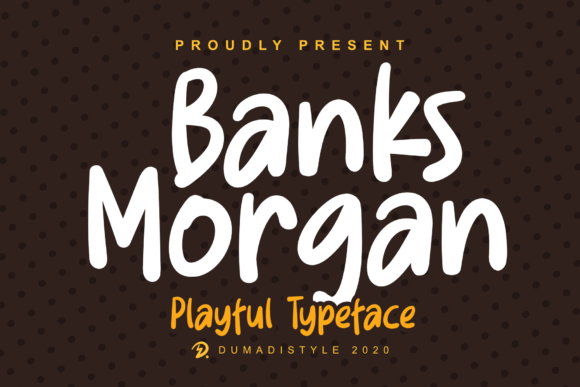
Banks Morgan Font: A Cute and Quirky Display Font to Elevate Your Designs
In the world of typography, fonts play a crucial role in conveying the tone and personality of a design. With thousands of fonts available, it can be overwhelming to choose the right one that makes your creative ideas stand out. However, if you’re looking for a font that adds a joyful touch to your designs, look no further than the Banks Morgan Font. In this article, we’ll explore the features and benefits of this beautiful display font and how it can elevate your designs to the next level.
What is Banks Morgan Font?
Banks Morgan Font is a cute and quirky display font designed to add a playful and fun touch to your designs. Its unique and irregular shape makes it perfect for creating eye-catching headings, titles, and captions. The font is carefully crafted to convey a sense of joy and friendliness, making it ideal for designs that require a personal and approachable tone.
Key Features of Banks Morgan Font
- Unique and Quirky Design: Banks Morgan Font boasts a distinctive and irregular shape that sets it apart from other fonts. Its quirky design makes it perfect for creating designs that stand out from the crowd.
- Playful and Fun: The font’s playful and fun nature makes it ideal for designs that require a lighthearted and approachable tone.
- Highly Versatile: Banks Morgan Font can be used for a wide range of design projects, from branding and advertising to packaging and digital media.
- Easily Readable: Despite its quirky design, the font is easily readable, making it perfect for use in headings, titles, and captions.
Benefits of Using Banks Morgan Font
So, why should you choose Banks Morgan Font for your designs? Here are some benefits of using this beautiful display font:
- Adds a Joyful Touch: Banks Morgan Font adds a joyful and playful touch to your designs, making them more engaging and attention-grabbing.
- Creates a Personal Connection: The font’s friendly and approachable nature helps create a personal connection with your audience, making your designs more relatable and memorable.
- Perfect for Branding and Advertising: Banks Morgan Font is ideal for branding and advertising projects that require a fun and playful tone, such as logos, taglines, and product packaging.
- Easy to Pair with Other Fonts: The font is easily paired with other fonts, making it perfect for use in combination with other typography styles.
How to Use Banks Morgan Font in Your Designs
Now that we’ve explored the features and benefits of Banks Morgan Font, let’s discuss how to use it in your designs:
- Headings and Titles: Use Banks Morgan Font as a heading or title font to add a playful and fun touch to your designs.
- Captions and Taglines: Use the font as a caption or tagline font to add a personal and approachable tone to your designs.
- Branding and Logo Design: Use Banks Morgan Font as a primary or secondary font for branding and logo design projects that require a fun and playful tone.
- Digital Media: Use the font in digital media, such as social media graphics, email newsletters, and website headers, to add a joyful and engaging touch to your online presence.
Tips for Pairing Banks Morgan Font with Other Fonts
Pairing Banks Morgan Font with other fonts can create a unique and visually appealing typography style. Here are some tips for pairing this font with other fonts:
- Pair with Serif Fonts: Pair Banks Morgan Font with serif fonts, such as Times New Roman or Georgia, to create a contrasting and visually appealing typography style.
- Pair with Sans-Serif Fonts: Pair the font with sans-serif fonts, such as Arial or Helvetica, to create a clean and modern typography style.
- Pair with Script Fonts: Pair Banks Morgan Font with script fonts, such as Pacifico or Great Vibes, to create a elegant and sophisticated typography style.
In conclusion, Banks Morgan Font is a beautiful display font that adds a joyful and playful touch to your designs. Its unique and quirky design makes it perfect for creating eye-catching headings, titles, and captions. With its highly versatile nature, easily readable design, and friendly tone, this font is ideal for a wide range of design projects, from branding and advertising to packaging and digital media. By pairing it with other fonts and using it in your designs, you can create a unique and visually appealing typography style that elevates your creative ideas to the next level.
- What is Banks Morgan Font?: Banks Morgan Font is a cute and quirky display font designed to add a playful and fun touch to your designs.
- Is Banks Morgan Font easy to read?: Yes, Banks Morgan Font is easily readable, making it perfect for use in headings, titles, and captions.